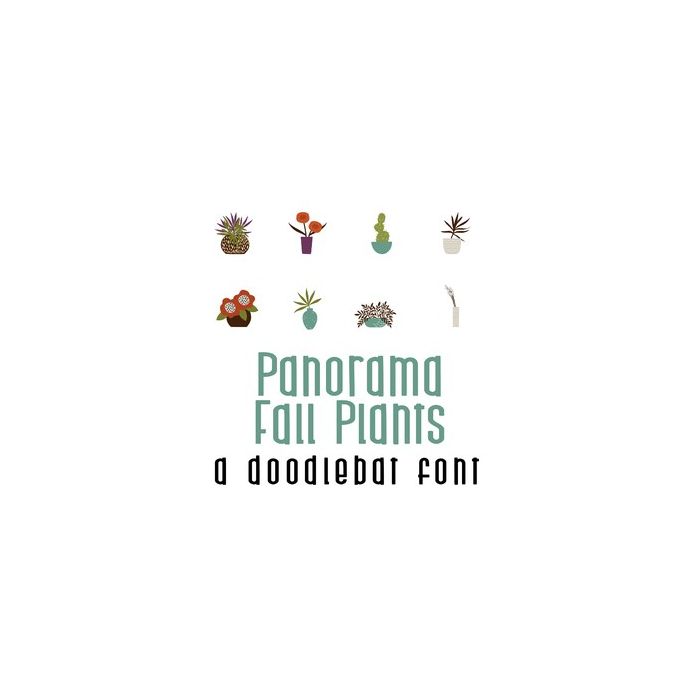
This adorable full-color doodlebat font features 26 beautiful fall plants and florals. Perfect for cards, crafts, gifts, decor, scrapbook pages, planner stickers, and more!